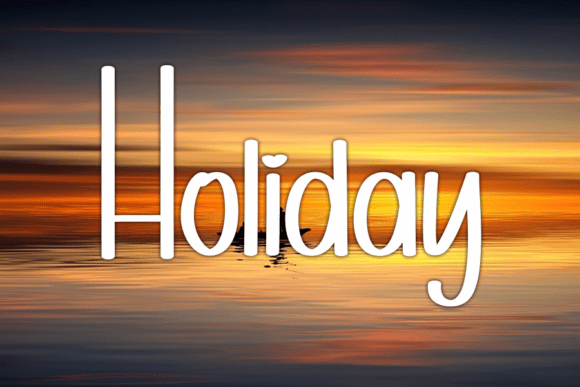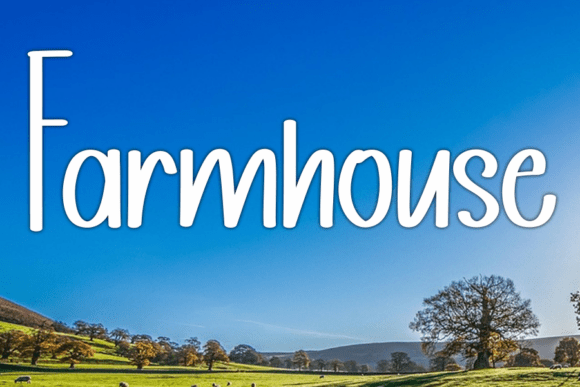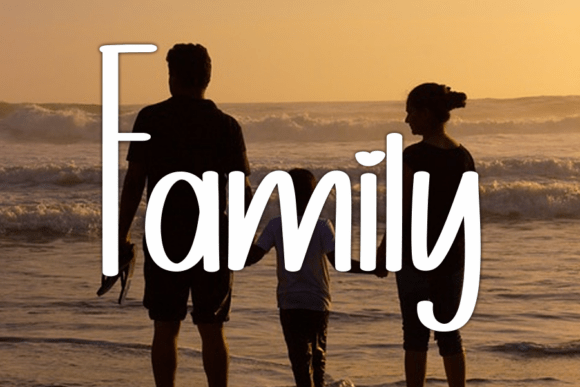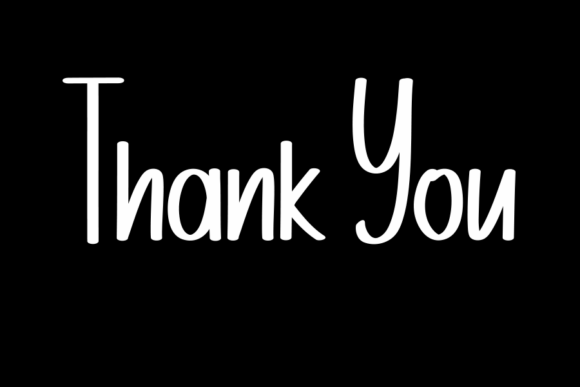
The Recipe for a Perfect Design: Cooking Font
There’s nothing quite like the feeling of a blank page staring back at you, waiting for your creative touch. You’ve got an idea brewing, and your fingers are itching to bring it to life. As you begin to sketch out your design, you know that the right font can make all the difference. That’s where Cooking Font comes in – a simple, yet versatile handwritten font that’s guaranteed to add a touch of warmth and personality to your next project.
Whether you’re crafting a heartfelt greeting card or creating a bold headline, Cooking Font is the perfect ingredient to elevate your design. With its natural feel and effortless charm, it’s no wonder designers are falling in love with this versatile font. By incorporating Cooking Font into your next project, you’ll be adding a dash of creativity and a pinch of personality – the perfect recipe for a design that truly stands out.
Cooking Font Key Features
- Font Style: Cooking Font is a unique, hand-drawn font designed to resemble a chef’s handwriting, perfect for adding a personal touch to recipes, food blogs, and culinary brands.
- Unique Characteristics: Each letter is carefully crafted to resemble a chef’s handwriting, with subtle imperfections and flourishes that add a touch of personality to your designs.
Cooking Font Review
As a designer, I was excited to try out the Cooking Font and see if it lived up to its promise of adding a dash of culinary charm to my designs. Overall, I was pleasantly surprised by its unique aesthetic.
- ✨ The font’s playful, handwritten feel is perfect for adding a personal touch to food-related projects.
- ✨ The bold and italic styles offer plenty of flexibility for creating visual interest and hierarchy in designs.
- ✨ The font’s high-quality vector format makes it easy to resize and manipulate without losing any detail.
- ⚠️ While the font’s charm is undeniable, its readability can be a concern in smaller sizes or for certain types of text.
- ⚠️ The font’s design may not be suitable for projects that require a more formal or sophisticated tone.
Overall, I would recommend the Cooking Font to designers working on food-related projects, social media graphics, or any other project that needs a playful, whimsical touch. While it may have some limitations, its unique charm and high-quality design make it a great addition to any designer’s toolkit.
Cooking Font is ideal for food-related designs, including:
- Restaurant menus
- Food blogs
- Cookbooks
- Advertising for food products
Remember to use the font in a way that’s consistent with your brand and design aesthetic